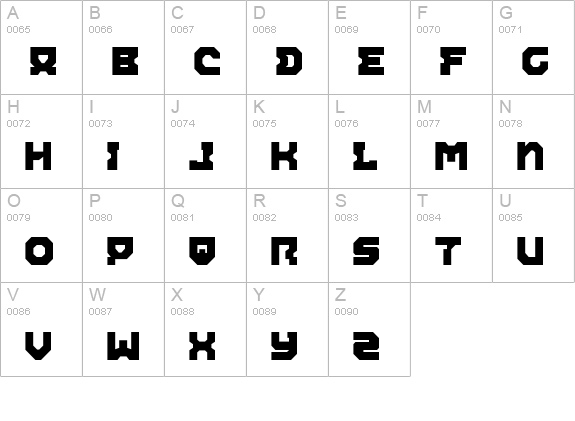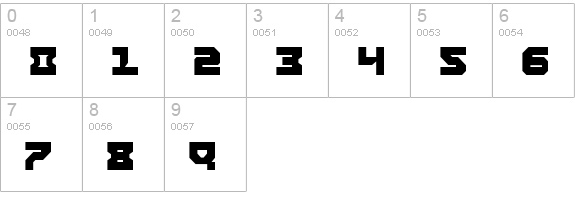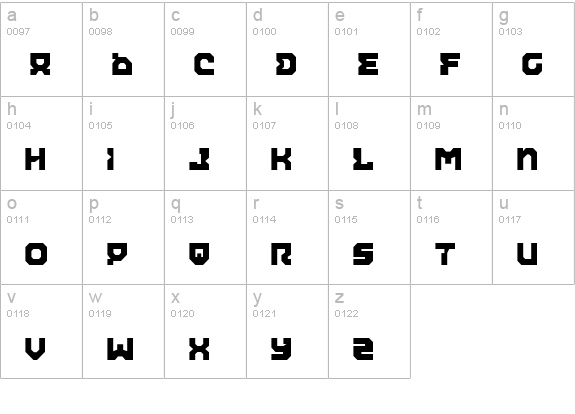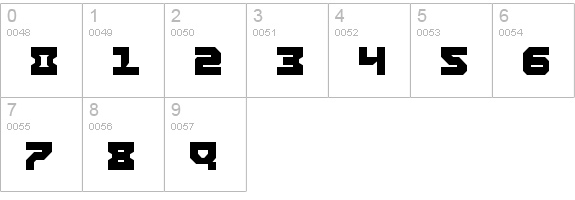
Airacobra font is a stylish and versatile typeface that exudes a sense of modernity and sophistication. With its sleek lines and contemporary design, Airacobra is perfect for a wide range of design projects, from logos to branding to editorial design. This font features a unique blend of sharp angles and smooth curves, giving it a distinctive and eye-catching appearance. The best part about Airacobra font is that it is completely free to download at FontsMarket.com. Whether you're a designer looking to add a fresh new font to your collection or a business owner in need of a modern and impactful typeface for your branding materials, Airacobra is the perfect choice. Don't miss out on this opportunity to enhance your designs with this exceptional font - download Airacobra today and take your projects to the next level!